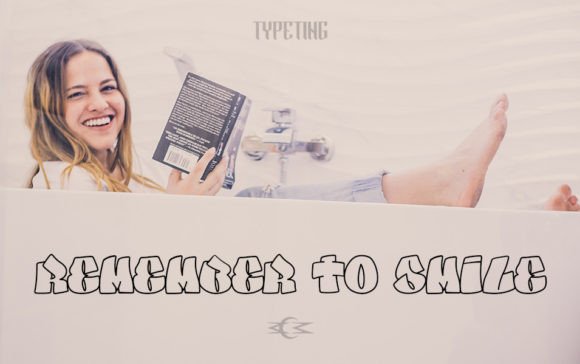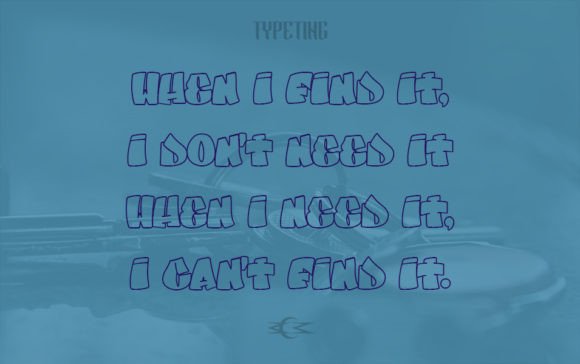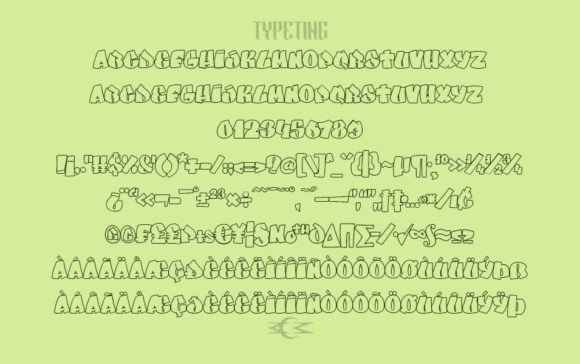
Introducing Comedy Font: The Ultimate Choice for Cheerful and Positive Designs
Are you tired of using the same old fonts for your designs? Look no further! Comedy Font is here to bring a burst of fun and energy to your creative projects. This adorable outline display font is perfect for designers and crafters who want to add a touch of playfulness to their work.
What is Comedy Font?
Comedy Font is a cute outline display font that is specifically designed to add a cheerful and positive vibe to your designs. Its unique outline style and bold lines make it stand out from other fonts, making it perfect for headlines, titles, and other attention-grabbing elements.
Key Features of Comedy Font
- Cute and Playful Design: Comedy Font has a fun and quirky design that is sure to bring a smile to your face. Its outline style gives it a distinctive look that is both modern and stylish.
- Easy to Read: Despite its playful design, Comedy Font is surprisingly easy to read, making it perfect for use in a variety of design projects, from posters and flyers to digital graphics and more.
- Highly Versatile: Comedy Font is a highly versatile font that can be used in a wide range of design projects, from children’s party invitations to social media graphics and more.
How to Use Comedy Font in Your Designs
Comedy Font is incredibly easy to use and can add a touch of fun and personality to your designs. Here are a few ideas for using Comedy Font in your projects:
- Party Invitations: Use Comedy Font to create fun and playful party invitations that are sure to get your guests excited.
- Social Media Graphics: Add a touch of humor and personality to your social media graphics with Comedy Font.
- Posters and Flyers: Use Comedy Font to create eye-catching posters and flyers that are sure to grab attention.
- Digital Graphics: Add a playful touch to your digital graphics, such as email headers and blog posts, with Comedy Font.
Benefits of Using Comedy Font
Using Comedy Font in your designs can have a number of benefits, including:
- Increased Engagement: Comedy Font can help increase engagement with your audience by adding a touch of humor and personality to your designs.
- Improved Brand Recognition: Using a unique and playful font like Comedy Font can help improve brand recognition and set your brand apart from others.
- Enhanced Creativity: Comedy Font can help inspire creativity and add a fresh perspective to your designs.
Tips and Tricks for Getting the Most Out of Comedy Font
Here are a few tips and tricks for getting the most out of Comedy Font:
- Experiment with Different Colors: Comedy Font looks great in a variety of colors, so don’t be afraid to experiment and find the perfect color for your design.
- Use it in Combination with Other Fonts: Comedy Font pairs well with a variety of other fonts, so try using it in combination with other fonts to create a unique and interesting design.
- Don’t be Afraid to Get Creative: Comedy Font is a versatile font that can be used in a wide range of design projects, so don’t be afraid to get creative and try new things.
Comedy Font is a fun and playful outline display font that is perfect for designers and crafters who want to add a touch of humor and personality to their designs. With its cute and playful design, ease of use, and high versatility, Comedy Font is sure to become a favorite in your design toolkit. So why wait? Download Comedy Font today and start adding a touch of comedy to your designs!